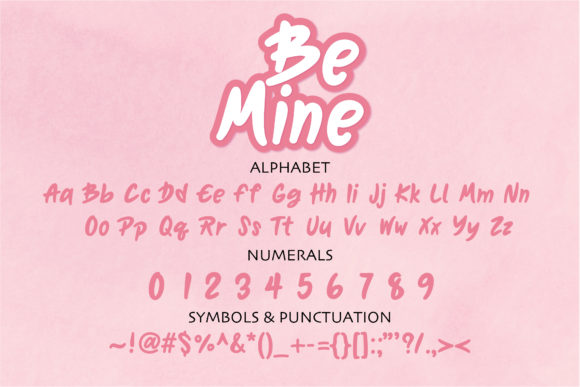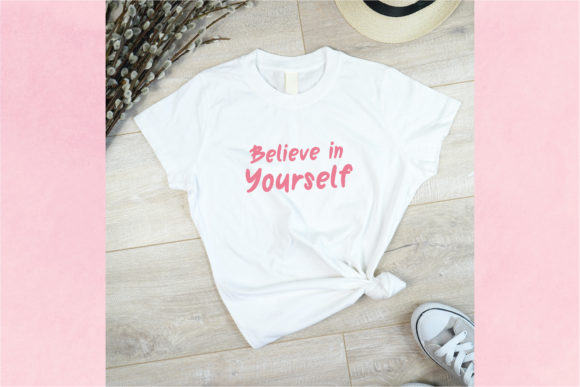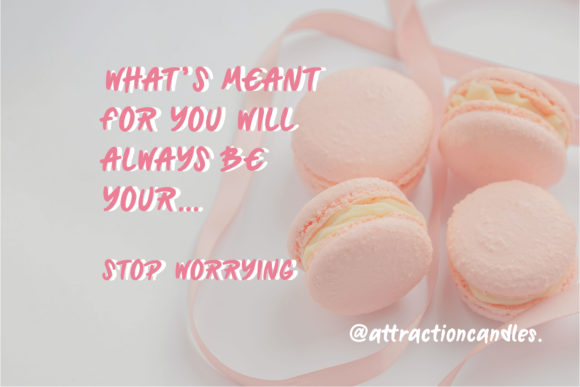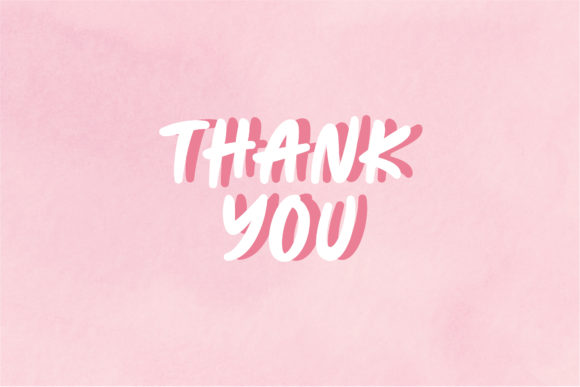
Introducing Be Mine Font: The Perfect Handwritten Touch for Your Designs
Are you tired of using the same old fonts for your designs? Do you want to add a personal touch that sets your work apart from the rest? Look no further than Be Mine Font, a casual handwritten font that’s perfect for a wide range of design projects. In this article, we’ll take a closer look at the features and benefits of Be Mine Font, and explore how it can elevate your designs to the next level.
What is Be Mine Font?
Be Mine Font is a unique and natural handwritten font that’s designed to bring a touch of personality to your designs. Its casual and relaxed style makes it perfect for a variety of applications, from quotes and greeting cards to logos and business cards. Whether you’re a designer, crafter, or DIY enthusiast, Be Mine Font is a versatile and easy-to-use font that can help you create stunning designs.
Key Features of Be Mine Font
- Natural and Unique Style: Be Mine Font has a distinctive handwritten style that’s both natural and unique. Its imperfections and quirks give it a personal touch that’s hard to replicate with generic fonts.
- Highly Versatile: Be Mine Font is incredibly versatile and can be used for a wide range of design projects, from digital graphics to print materials.
- Easy to Read: Despite its handwritten style, Be Mine Font is surprisingly easy to read, making it perfect for designs that require a lot of text.
- Scalable: Be Mine Font is designed to be scalable, so you can use it for designs of all sizes, from business cards to billboards.
Be Mine Font is a dream come true for designers and crafters who want to add a personal touch to their work. Here are just a few ways you can use Be Mine Font in your designs:
- Quotes and Posters: Use Be Mine Font to create inspiring quotes and posters that are sure to grab attention.
- Greeting Cards: Add a personal touch to your greeting cards with Be Mine Font, perfect for special occasions like birthdays, weddings, and holidays.
- Logos and Branding: Use Be Mine Font to create unique and memorable logos and branding materials that set your business apart.
- Business Cards: Make a lasting impression with Be Mine Font on your business cards, perfect for networking and marketing.
Tips for Using Be Mine Font
Here are a few tips for getting the most out of Be Mine Font:
- Use it sparingly: Be Mine Font is best used sparingly, as too much of it can be overwhelming. Use it to highlight key text or add a personal touch to your designs.
- Experiment with colors: Be Mine Font looks great in a variety of colors, so don’t be afraid to experiment and find the perfect hue for your design.
- Pair it with other fonts: Be Mine Font pairs well with a variety of other fonts, so try combining it with other fonts to create a unique and interesting design.
Be Mine Font is a versatile and easy-to-use font that’s perfect for designers and crafters who want to add a personal touch to their work. Its natural and unique style makes it incredibly fitting for a wide range of design projects, from quotes and greeting cards to logos and business cards. With its highly versatile and scalable design, Be Mine Font is sure to become a go-to font in your design arsenal.